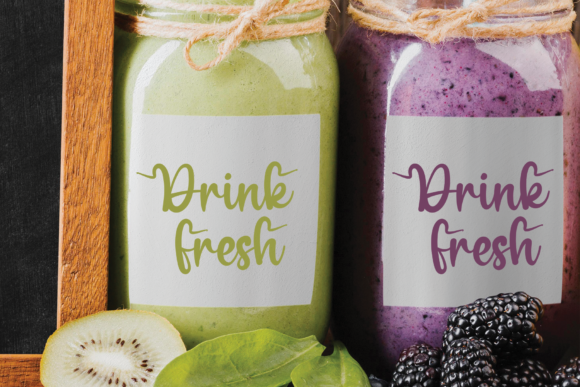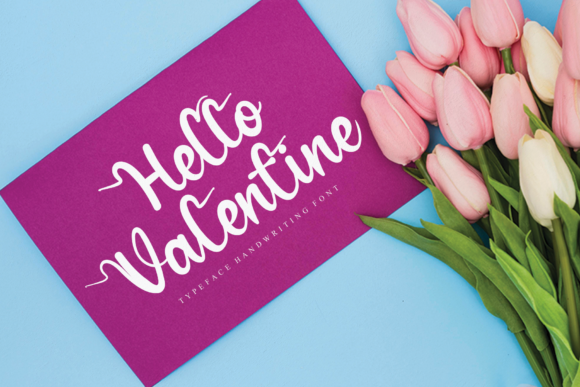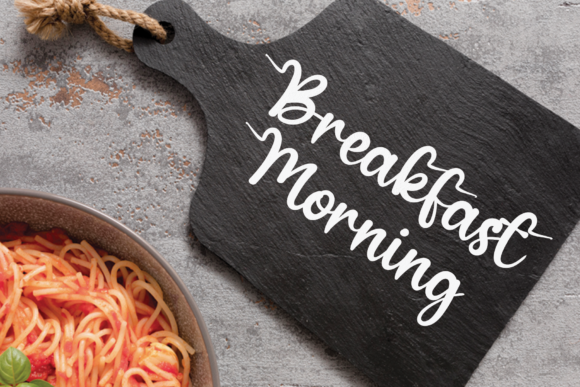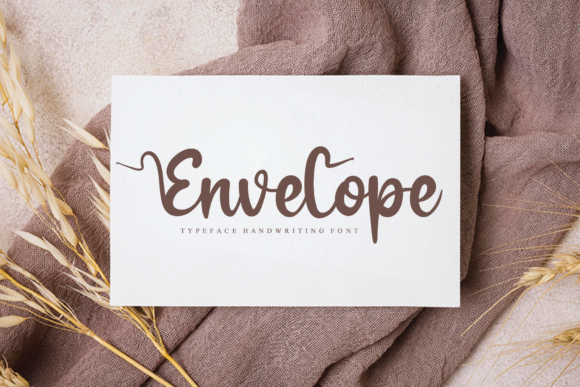
The Butterfly Effect: How Butterfly Valentine Font Can Transform Your Designs
I’ll never forget the time I was working on a Valentine’s Day project for a client, and I just couldn’t find the right font to capture the romantic and warm feel they were looking for. I scoured the internet, tried out dozens of fonts, but nothing seemed quite right. That was until I stumbled upon Butterfly Valentine Font. ✨ It was like a breath of fresh air – the perfect blend of elegance and playfulness that instantly elevated my design.
An Honest Review of Butterfly Valentine Font
- ✨ Balanced and varied strokes: The font’s handwritten style is not too thin and not too thick, making it easy to read and visually appealing.
- ✅ Perfect for romantic projects: The font’s warm and romantic feel makes it ideal for Valentine’s Day, wedding, or anniversary projects.
- 💕 OpenType features: The font comes with a range of OpenType features, including glyphs and stylistic alternates, which allow for endless creative possibilities.
While Butterfly Valentine Font is an amazing addition to any design project, there are a few things to keep in mind: 🤔
- ⚠️ Limited use in very formal designs: The font’s playful and handwritten style may not be suitable for very formal or corporate designs.
- ⚠️ Some characters may require adjustment: As with any font, some characters may require adjustment to get the perfect kerning and spacing.
The Story Behind Butterfly Valentine Font
Butterfly Valentine Font was designed with love and care by a talented typographer who wanted to create a font that would capture the essence of romance and warmth. The font’s creator drew inspiration from classic handwritten scripts and infused them with a modern twist, resulting in a unique and beautiful font that’s perfect for any romantic project.
Q: Is Butterfly Valentine Font suitable for body text?
A: While Butterfly Valentine Font is beautiful and elegant, it may not be the best choice for body text due to its handwritten style. It’s better suited for headlines, titles, and short paragraphs.